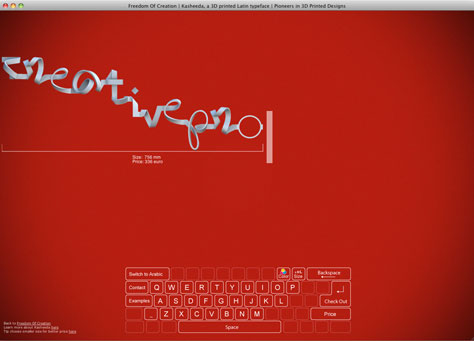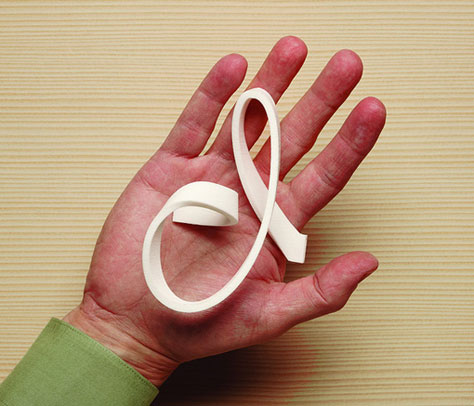
See (and Even Buy) a Font That's Truly 3D
Freedom Of Creation has launched the production and distribution of the world’s first 3D font and made one further step towards its dream of totally customized industrial production available to a global public. Kashida-arabic and Kashida-latin are the two versions of the three-dimensional font, developed by Yara Khoury and Melle Hammer in collaboration with FOC and upon invitation by the Khatt foundation for Arabic typography and design research.
A Milestone
With the innovative Kashida-arabic and Kashida-latin 3D fonts, the customer can type his personal text, word or acronym on the computer and order his sculptural text directly from the 3D printers of Freedom Of Creation. This means 100% customization: the very first opportunity to have a standardized basis product personalized to every single one’s needs, fabricated just in time in an industrial way and distributed all over the world. The rapid manufacturing dream is becoming reality and Freedom Of Creation once more is the pioneer.
Kashida 3D font
Kashida-arabic and Kashida-latin font have been developed by Yara Khoury and Melle Hammer on invitation by the Khatt foundation, an Amsterdam based Center for Arabic Typography aiming at building cultural bridges and advancing design in the Middle East and North Africa. The font is based on the concept of a thin and wide ribbon, bending freely through space. Just from one perspective the text reproduced by the ribbon can be read. All other points of view just offer suggestive visions of a banner floating in the air and bending on the ground in order to create a visually dynamic sculpture.
Cultural content
The new Kashida-arabic and Kashida-latin 3D fonts transform the characteristics of the Arabic and Latin letterforms and invert them. The sloping Arabic letterforms become straight and strict and vice versa, generating a fusion of the two cultural backgrounds. This is enhanced by the fact that in 3D typewriting the result is non directional: neither from left, like Latin writing, neither from right, like Arab writing. It is just about space, and the two writings can meet in the middle.
The FOC expertise
Materializing the Kashida-arabic and Kashida-latin 3D fonts as a sculptural object in traditional ways, like bending metal ribbons or similar, would have been artisan work and undergone the influences of the skills of every single craftsman. Choosing the FOC expertise in 3D printing is the will to make the 3D font available at standardized aesthetic and material quality to everybody thanks to rationalizing the production. Letters just will be typed on a computer, which will do the rest about connecting them in a fluid way. After having calculated in order to transform them into a single CAD file, the additive layer manufacturing process can start, the polyamide shape can materialize.